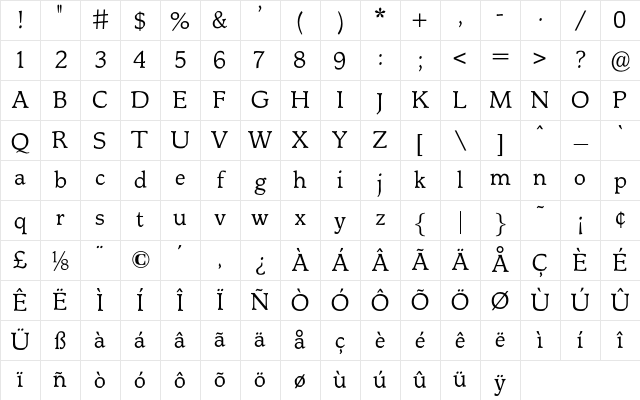
OPTIMagnaCarta-Regular Regular
OPTIMagnaCarta-Regular is a composed and adaptable typeface that performs quietly and consistently across a wide range of design contexts.